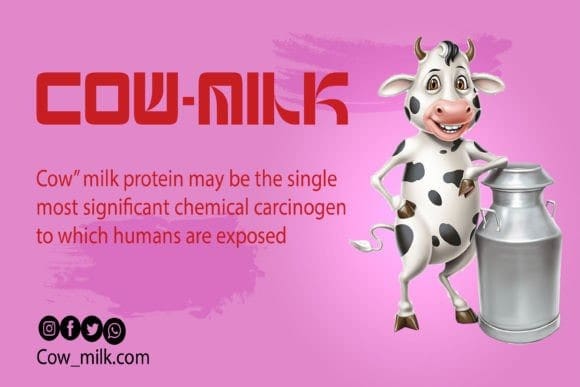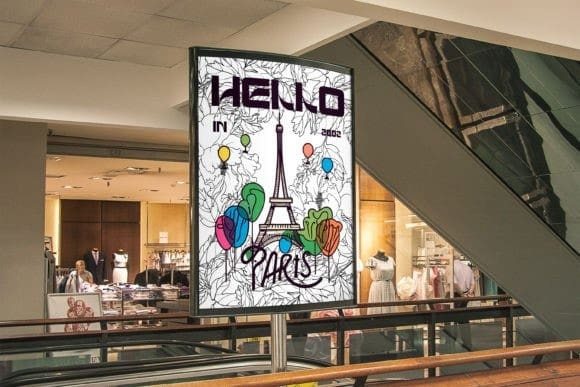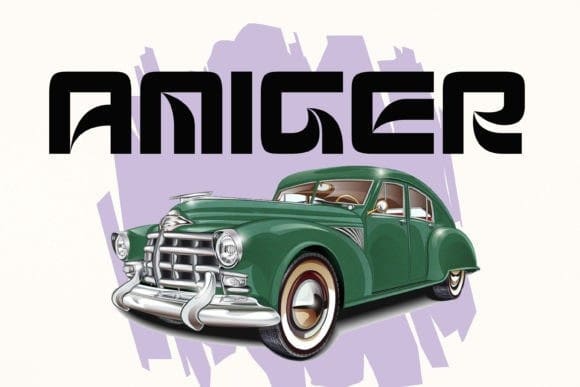
Amiger Font
Amiger Font A new elegant Sans serif font that will add a touch of luxury and style to your projects. This is a very versatile font that works well in both large and small sizes.
This font is suitable for branding projects, logo design, clothing branding, packaging, magazine titles, advertisements, t-shirts, postcards, editorials, magazine headlines, product packaging, and displaying masculine and feminine qualities.